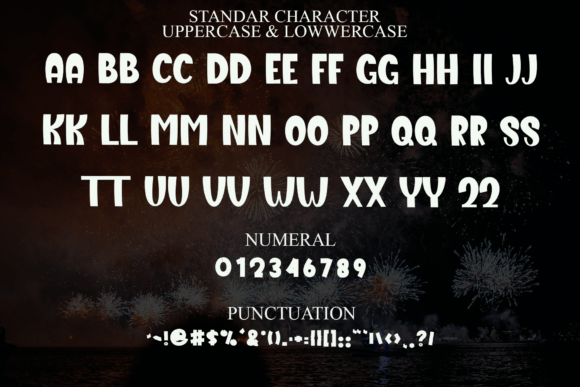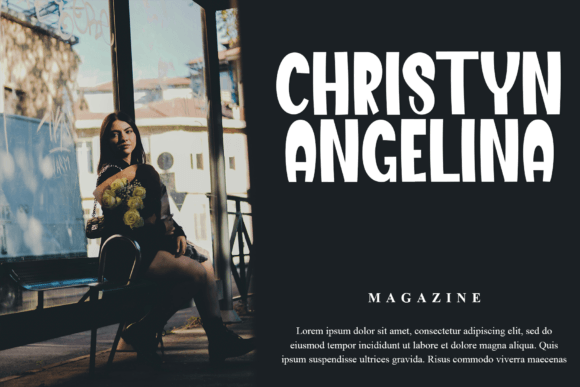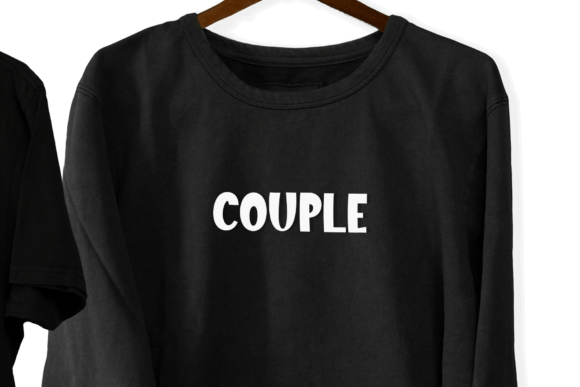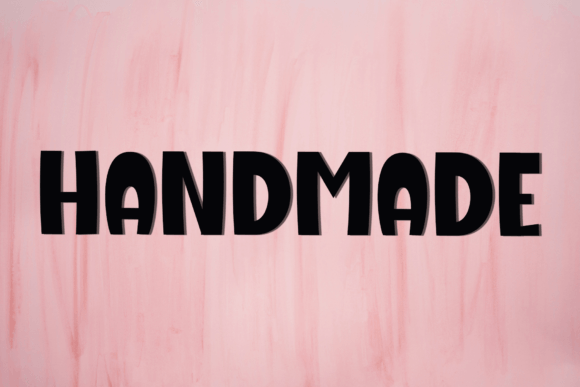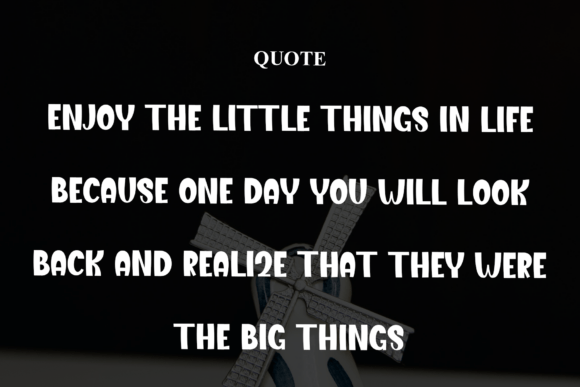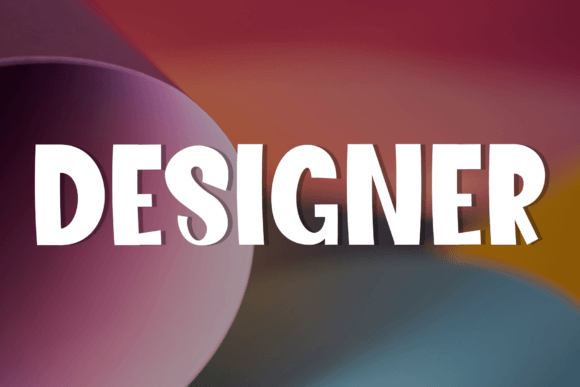
Unleashing Your Creativity with the Beauty Comica Font
Have you ever found yourself doodling in a notebook, experimenting with different shapes and lines, and suddenly, a beautiful design emerges? That’s the magic of creativity, and it’s exactly what the Beauty Comica Font embodies. This stunning font is designed to bring out the unique touch in your designs, making them stand out from the crowd.
The Beauty Comica Font is a versatile tool for designers, perfect for a wide range of creative projects. Its soft, distinctive strokes give it a special character, making it ideal for various applications, including Windows and open-source platforms. With its natural style, it’s no wonder that this font is gaining popularity among designers who want to add a touch of elegance to their work.
Beauty Comica Font Key Features
- Font Family: Beauty Comica Font is a comic sans-serif font family that offers a unique and playful touch to digital content.
- Unique Characteristics: The font’s unique comic sans-serif design, with rounded edges and playful letterforms, adds a touch of whimsy and personality to digital content.
Beauty Comica Font Review
Overall, I’m impressed with the Beauty Comica Font. Here are some of its standout features:
- ✨ Unique and playful aesthetic: This font is perfect for those who want to add a touch of whimsy to their designs.
- ✨ High-quality vector graphics: The font is well-optimized for both digital and print use, making it suitable for a wide range of applications.
- ✨ Great for hand-drawn or digital illustrations: Beauty Comica Font’s expressive lines and flourishes make it ideal for projects that require a more artistic feel.
However, I do have a few concerns:
- ⚠️ Limited font weights: The font only comes in a few weights, which may limit its versatility in certain designs.
- ⚠️ Not suitable for formal or professional projects: While the font is perfect for creative or artistic projects, it may not be the best choice for formal or professional applications.
Overall, I’d say the Beauty Comica Font is a great addition to any designer’s toolkit, as long as you’re aware of its limitations. With its unique aesthetic and high-quality vector graphics, it’s perfect for projects that require a touch of whimsy and creativity.
Use the Beauty Comica font for titles, headings, and emphasis in your designs. Pair it with a clean and simple font for body text to create a visually appealing contrast.
The Beauty Comica font is perfect for:
- Designing beauty and wellness products
- Creating fashion and lifestyle branding
- Developing digital products for the beauty industry